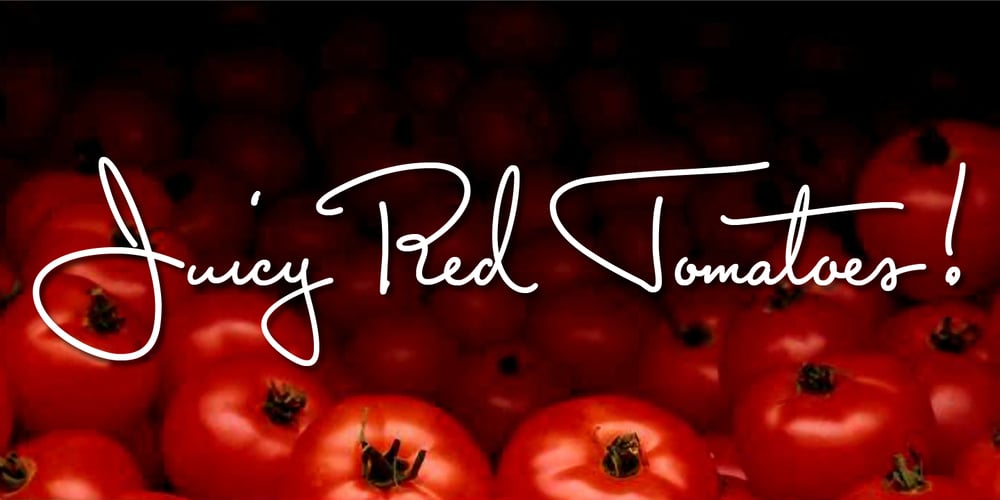
Capistrano BF Font Family was designed by John Bomparte and published by Bomparte’s Fonts. Capistrano BF contains 1 styles and family package options. Capistrano BF is an all-connecting, monolinear handwritten script that exudes much verve and vigor. A number of Automatic Ligatures and Contextual Alternates, for beginning and ending (lowercase) letters are included in the font, along with Stylistic Alternates for uppercase letters A, F, and T. Enable these features in OpenType-savvy programs (such as InDesign CS+, Illustrator CS+ and QuarkXpress 7 and later) to enhance your typography. In line-upon-line settings, Capistrano benefits from generous line spacing. As with most scripts, it is not recommended that word settings be in all uppercase, but rather in settings of initial capitals together with lowercase letters.